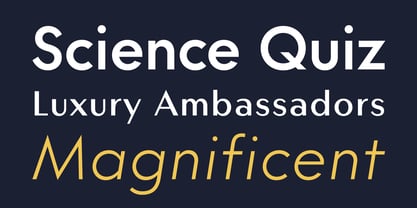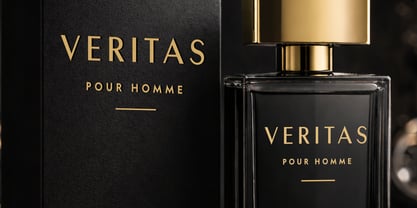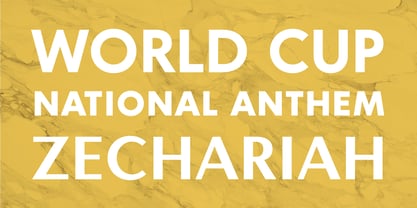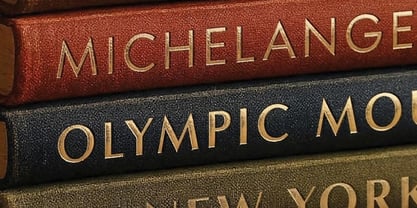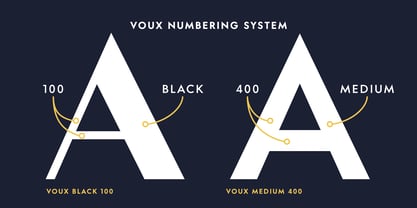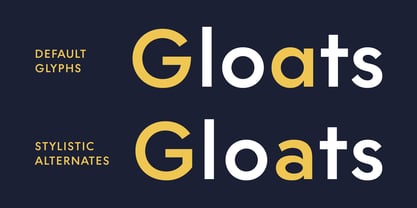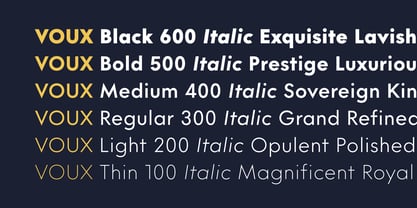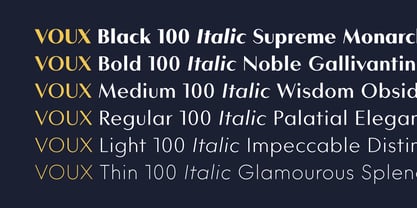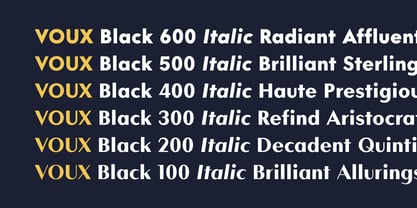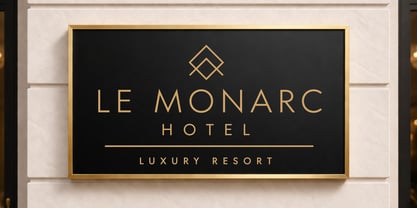
The Voux Font Family was designed by Richard Miller and published by Miller Type Foundry. Voux contains 60 styles and family package options. More about this family
Departing from traditional two-axis typography, Voux is built upon an innovative three-axis design system. This innovative approach provides precise control over the relationship between dominant and secondary strokes, creating a typeface capable of moving fluidly between multiple styles such as bold contrast, elegant refinement, and minimalist precision.